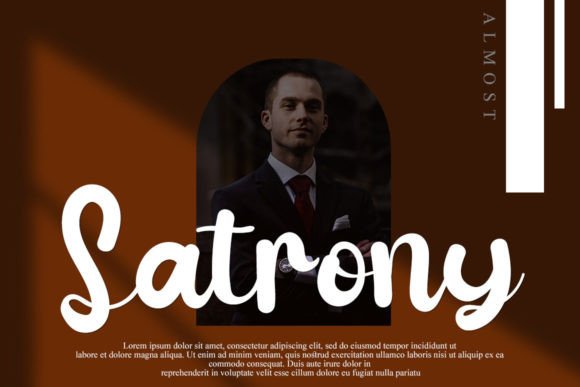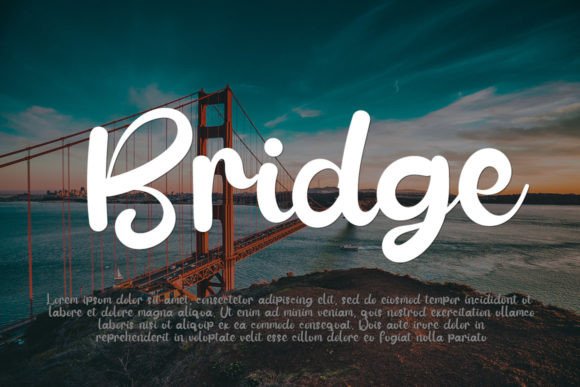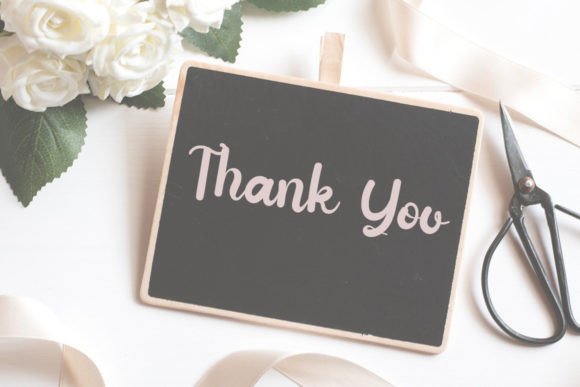
Introducing Almonde: The Elegant Script Font for Your Creative Projects
Are you looking for a font that can add a touch of elegance and sophistication to your designs? Look no further than Almonde, a stunning script font that is sure to take your creative projects to the next level. With its intricate, flowing lines that emulate the natural movement of handwriting, Almonde is the perfect choice for designers and crafters who want to create unique and personalized designs.
The Beauty of Almonde Font
Almonde font is a beautiful typeface that features intricate, flowing lines that give it a unique and elegant look. The font’s design is inspired by traditional calligraphy, with each letter carefully crafted to create a sense of movement and fluidity. The result is a font that looks like it was written by hand, with a personal touch that sets it apart from more traditional fonts.
One of the standout features of Almonde font is its versatility. Whether you’re working on a wedding invitation, a branding project, or a social media post, this font is sure to add a touch of elegance and sophistication to your design. Its flowing lines and intricate details make it perfect for creating eye-catching headlines, while its clear and legible design ensures that your text remains easy to read.
Why Choose Almonde Font?
So why choose Almonde font for your creative projects? Here are just a few reasons why this stunning script font is a great choice:
- Elegance and Sophistication: Almonde font adds a touch of elegance and sophistication to any design, making it perfect for high-end brands and luxury products.
- Unique and Personalized: With its intricate, flowing lines, Almonde font creates a unique and personalized look that’s sure to stand out from the crowd.
- Versatile: Whether you’re working on a wedding invitation, a branding project, or a social media post, Almonde font is versatile enough to adapt to any design style.
- Easy to Read: Despite its intricate design, Almonde font is clear and legible, making it easy to read and understand.
How to Use Almonde Font in Your Designs
Using Almonde font in your designs is easy. Here are a few tips to get you started:
- Pair it with a Simple Font: Pair Almonde font with a simple font to create a striking contrast that adds visual interest to your design.
- Use it for Headlines: Almonde font is perfect for creating eye-catching headlines that add a touch of elegance and sophistication to your design.
- Experiment with Colors: Try experimenting with different colors to find the perfect match for your design. Almonde font looks great in bold, bright colors, as well as more muted, pastel shades.
Almonde font is a stunning script font that is sure to add elegance and sophistication to your designs. With its intricate, flowing lines and versatile design, it’s the perfect choice for designers and crafters who want to create unique and personalized designs. Whether you’re working on a wedding invitation, a branding project, or a social media post, Almonde font is a great choice. So why not give it a try and see the difference it can make in your designs?
In conclusion, Almonde font is a beautiful and elegant script font that is perfect for adding a touch of sophistication to your designs. Its intricate design, versatility, and ease of use make it a great choice for designers and crafters of all levels. So if you’re looking for a font that can help you create unique and personalized designs, look no further than Almonde font.